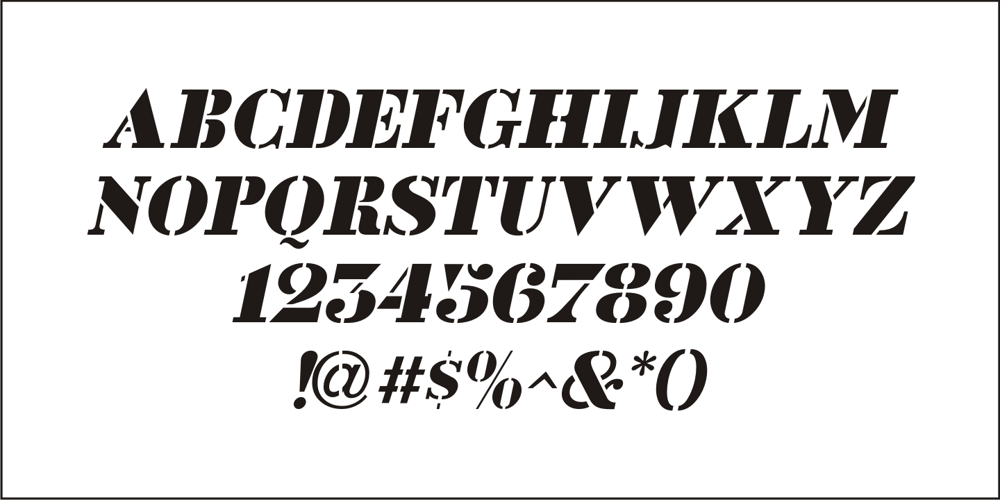
Belle Epoque Stencil JNL Font Family was designed by Jeff Levine and published by Jeff Levine. Belle Epoque Stencil JNL contains 2 styles and family package options. An old ad for Cointreau Triple Sec Liquor featured a bolder variant of the lettering style found in a set of vintage tin stencils that were the model for French Stencil JNL. This is now available as Belle Epoque Stencil JNL, in both regular and oblique versions. “Belle Epoque” means “beautiful era” in French.